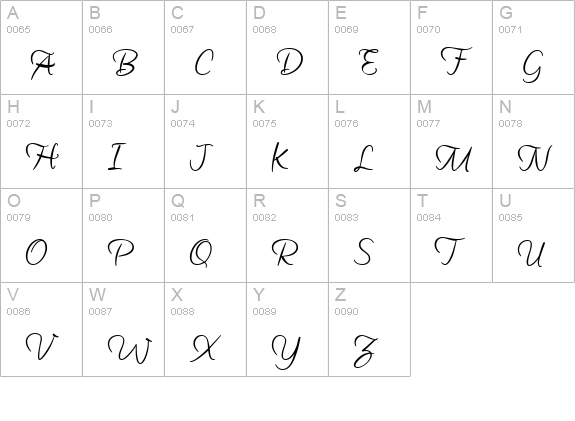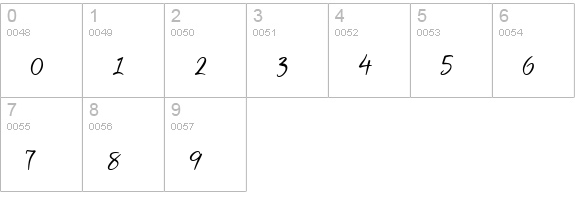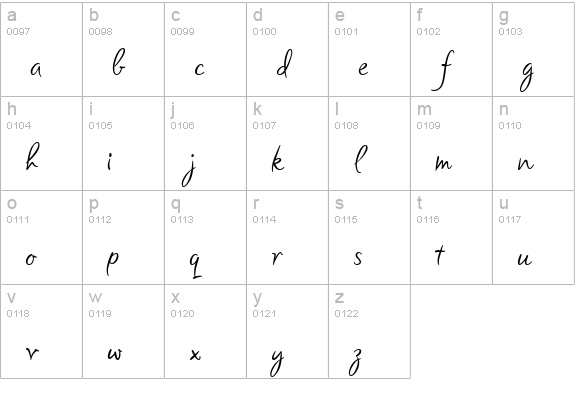
CK Tea Party Font Details
Introducing CK Tea Party font, a whimsical and charming typeface that brings a touch of elegance to your creative projects. This delightful font features intricate detailing and graceful curves, perfect for adding a sophisticated flair to invitations, greeting cards, and more. Whether you're planning a tea party or simply looking to add a touch of refinement to your designs, CK Tea Party font is sure to impress. Best of all, CK Tea Party font is completely free to download at FontsMarket.com. This means you can easily access this stunning font and incorporate it into your projects without any cost. Don't miss out on the opportunity to elevate your designs with the beauty and sophistication of CK Tea Party font. Download it today and let your creativity shine!